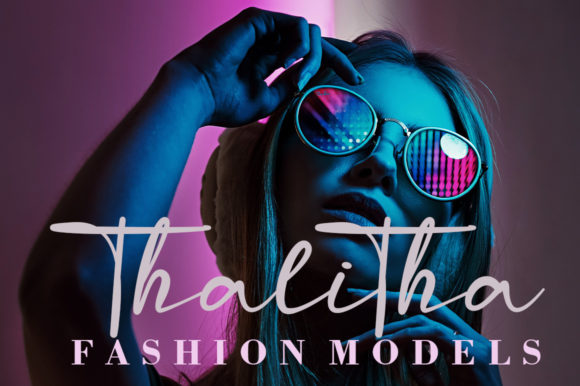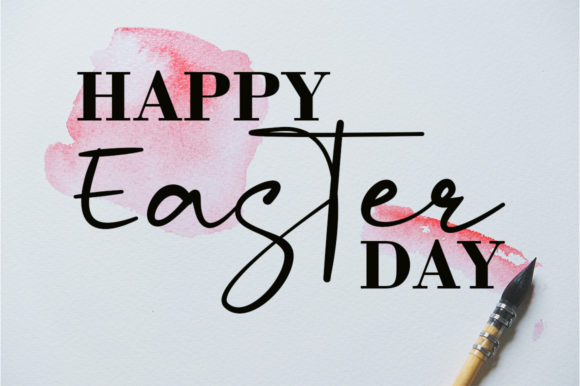
Chalistha Font
db-ku.com - Script & Handwritten -- Chalistha is a fun and friendly handwritten font. Use it to turn any design idea into a true standout. Get inspired by its unique charm and create lovely designs.